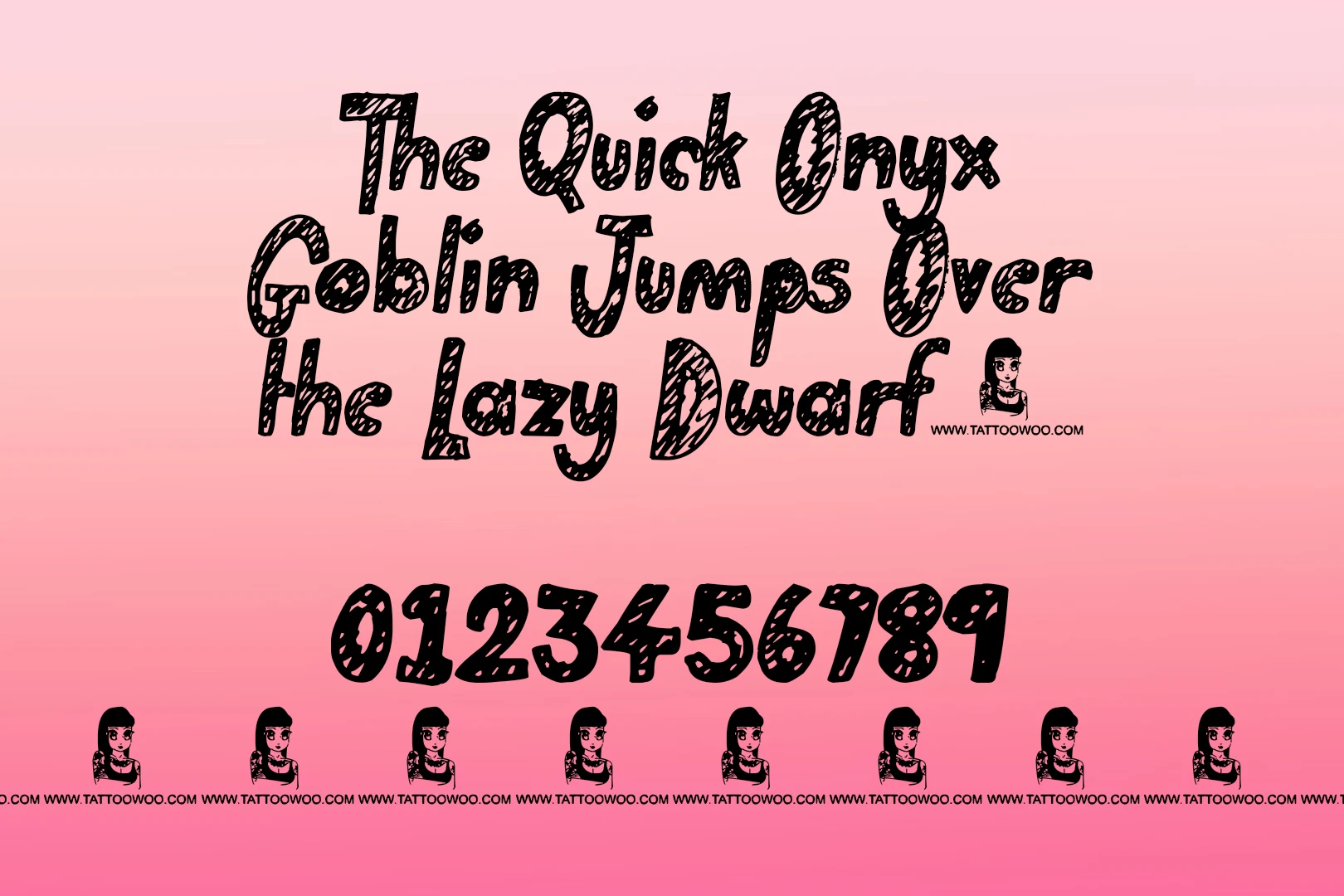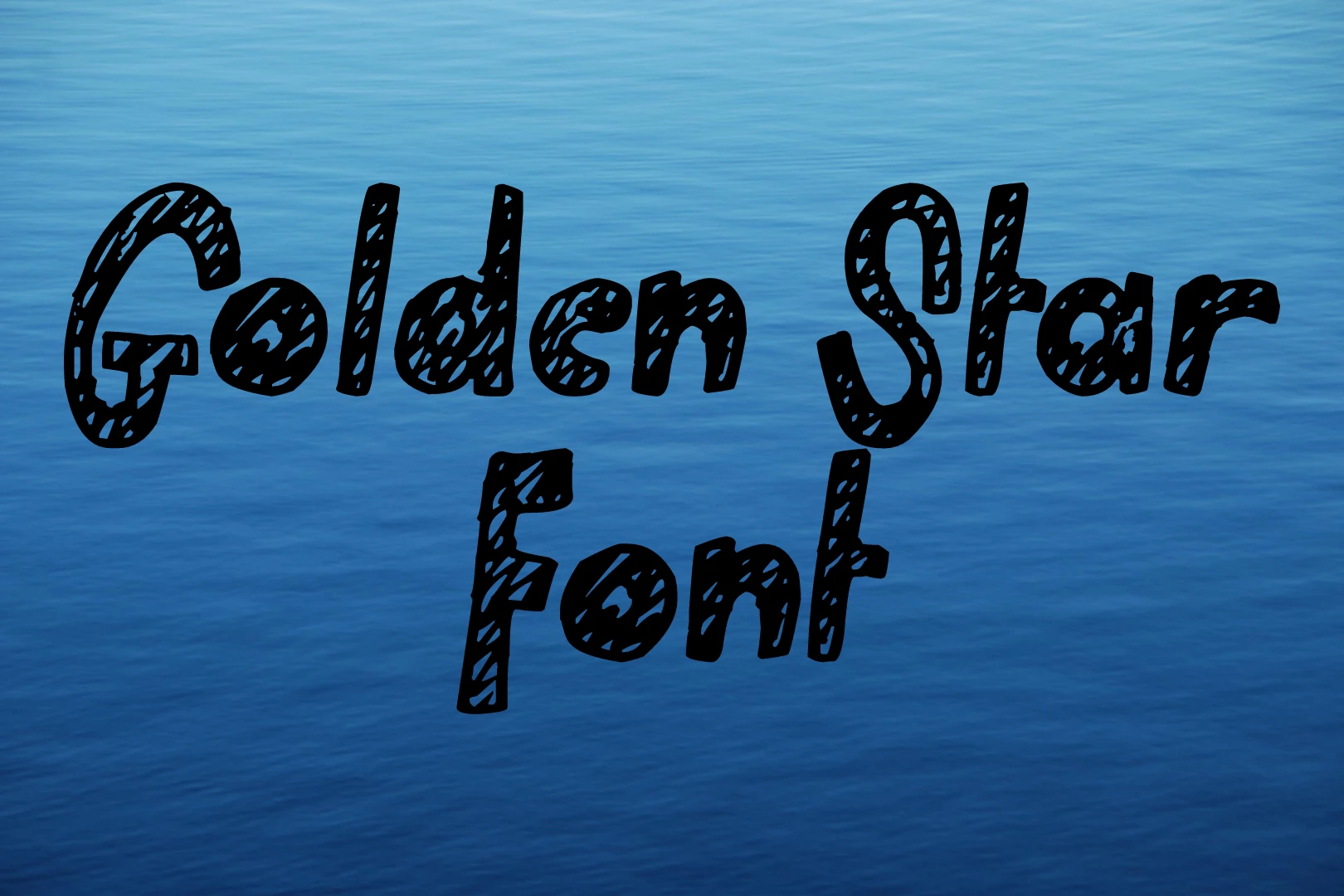
The Golden Star font, designed by Jonathan S. Harris, is a captivating typeface falling under the Fancy and Cartoon categories.
This font created in 2013, it offers a playful yet elegant aesthetic, making it a versatile choice for various design projects. With hand-drawn strokes and bold, energetic lines, this font’s style is perfect for creating an engaging, eye-catching presence.
It is ideal for personal projects, it brings a lively flair to designs, standing out in both digital and print layouts.
Uses of Golden Star Font
This font has a unique style making it highly suitable for branding, logos, posters, and packaging. Designers often use it to add character to advertisements or invitations for playful events.
Its bold and intricate design is particularly fitting for projects that need a mix of creativity and visibility, such as in social media graphics and print materials like brochures.
Golden Star Font View
| Name | Golden Star Font |
| Designer | JSH creates |
| Style | Fancy |